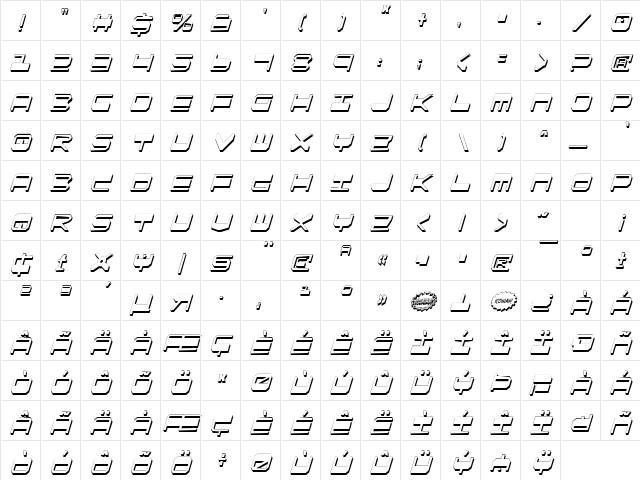
Complete QuickGear Shadow ItalCon glyph index. Displaying only characters natively supported by QuickGear Shadow ItalCon font.
QuickGear Shadow ItalCon is built around its visual character rather than neutral utility - its distinctive forms are designed to make an impression at display sizes.
Font Pairing: Pair with a clean neutral sans-serif for body copy to let QuickGear Shadow ItalCon's character lead without overwhelming the composition.
Pro Tip: Use QuickGear Shadow ItalCon exclusively at display sizes - it was designed to be seen, not read at length. Let a neutral companion handle body copy.